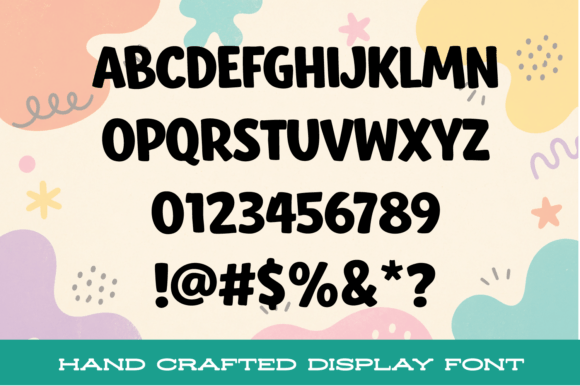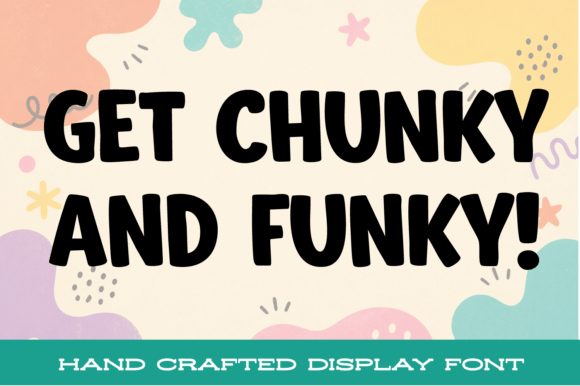
Introducing Chunkly Font: The Bold and Playful Display Font You Need
Are you tired of using the same old fonts for your designs? Do you want to add a touch of personality and fun to your headlines, logos, and packaging? Look no further than Chunkly Font, a bold, chunky display font that’s packed with personality. With its thick strokes, soft edges, and playful structure, Chunkly is the perfect font for designers and crafters who want to grab attention and keep things fun.
What Makes Chunkly Font So Special?
Chunkly Font is a one-of-a-kind display font that’s designed to make a statement. Its thick strokes and soft edges give it a unique, hand-crafted feel that’s perfect for adding a touch of whimsy to your designs. The font’s playful structure is also designed to be highly legible, making it easy to read and understand, even at large sizes.
Whether you’re a designer, crafter, or DIY enthusiast, Chunkly Font is the perfect addition to your font collection. The font is ideal for a wide range of projects, including:
- Headlines and titles: Add a bold, eye-catching touch to your headlines and titles with Chunkly Font.
- Logos and branding: Create a unique and memorable logo for your business or brand with Chunkly Font.
- Packaging: Add a playful touch to your packaging with Chunkly Font, perfect for product labels, tags, and more.
- Signs and posters: Create eye-catching signs and posters with Chunkly Font, perfect for advertising, promotions, and events.
Key Features of Chunkly Font
Here are just a few of the key features that make Chunkly Font so special:
- Bold and chunky strokes: Chunkly Font features thick, bold strokes that are perfect for grabbing attention.
- Soft edges: The font’s soft edges give it a unique, hand-crafted feel that’s perfect for adding a touch of whimsy to your designs.
- Playful structure: Chunkly Font’s playful structure is designed to be highly legible, making it easy to read and understand, even at large sizes.
- Highly versatile: Chunkly Font is perfect for a wide range of projects, from headlines and logos to packaging and signs.
How to Use Chunkly Font in Your Designs
Using Chunkly Font in your designs is easy. Here are a few tips to get you started:
- Pair it with a simple font: Pair Chunkly Font with a simple font, such as a sans-serif font, to create a bold and eye-catching contrast.
- Use it for headlines: Use Chunkly Font for headlines and titles to add a bold, attention-grabbing touch to your designs.
- Experiment with colors: Experiment with different colors and textures to add depth and interest to your designs.
If you’re looking for a bold, playful display font that’s packed with personality, look no further than Chunkly Font. With its thick strokes, soft edges, and playful structure, Chunkly is the perfect font for designers and crafters who want to grab attention and keep things fun. Whether you’re creating headlines, logos, packaging, or signs, Chunkly Font is the perfect addition to your font collection.